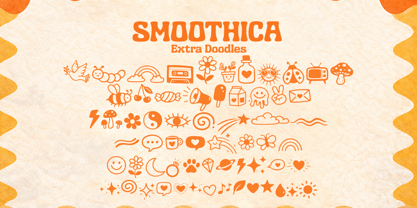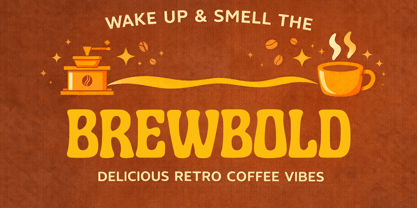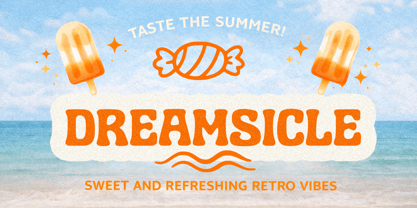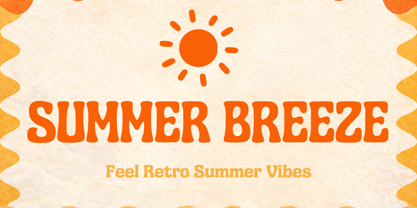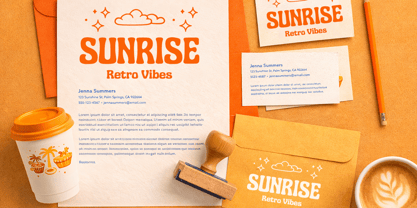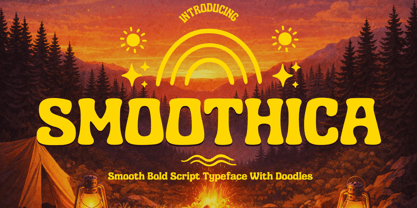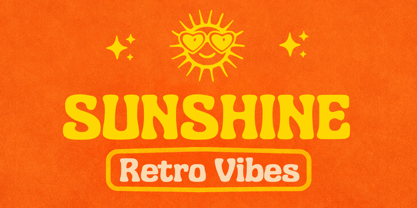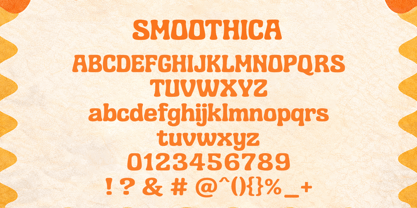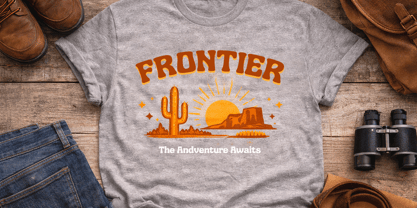
Smoothica
von Cocodesign
Die Schriftfamilie Smoothica wurde von Muhammad Zaini entworfen und von Cocodesign veröffentlicht. Smoothica enthält 3 Stile und Familienpaketoptionen. Mehr über diese Familie
Smooth Bold Script Typeface Smoothica is a bold script typeface featuring soft curves, rounded forms, and a warm retro character. The letterforms are smooth, expressive, and well-balanced, creating a strong visual impact while maintaining excellent readability. Designed with clean structure and consistent shapes, Smoothica works perfectly for display purposes and creative branding applications that require a friendly yet professional tone. ✨Style & Character Smooth bold script Retro-inspired display style Rounded and soft letterforms Clean, expressive shapes Strong and eye-catching appearance
Designer: Muhammad Zaini
Aktuelle Foundry: Cocodesign